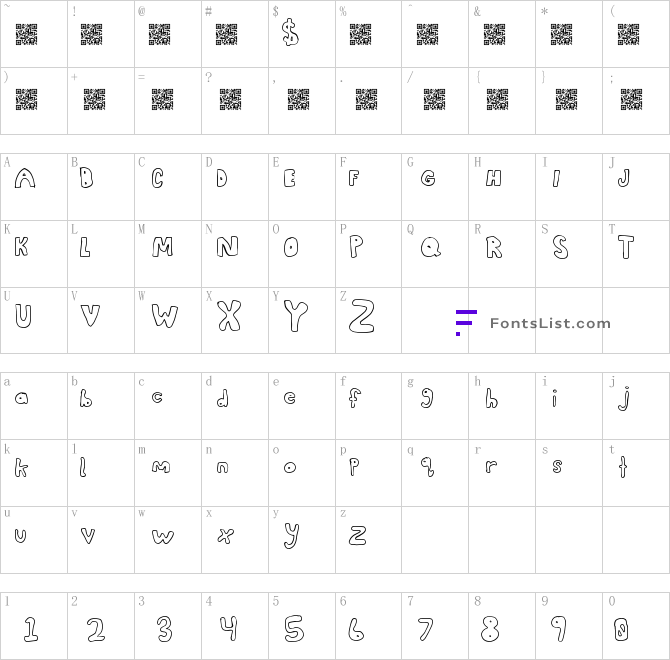
- Font Name:AwesomeStyle
AwesomeStyle.ttf is a very beautiful artistic font, AwesomeStyle.ttf is widely used in the design and printing of various books and pictures,AwesomeStyle.ttf has a strong visual impact,AwesomeStyle.ttf is a commonly used font in newspapers, magazines and books, and is used in posters, e-commerce Poster design, store design, logo design, font design and other fields.AwesomeStyle.